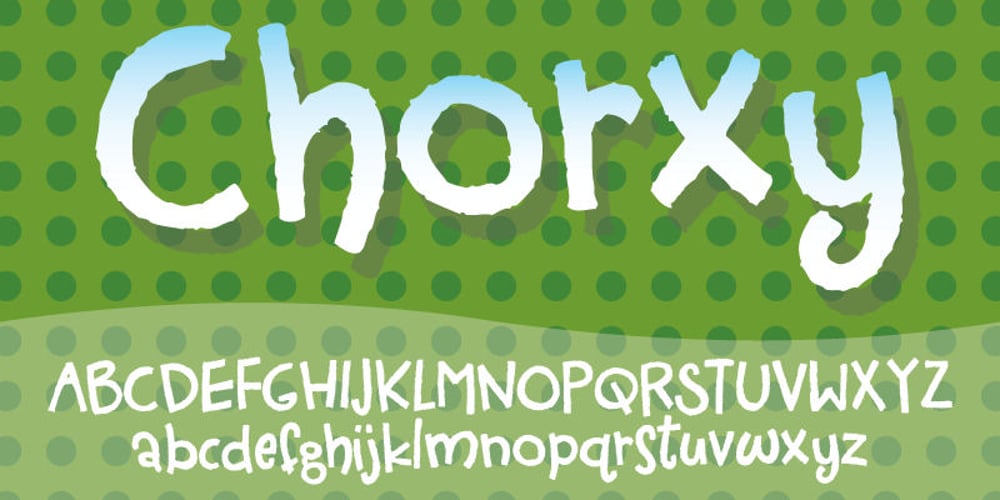
Chorxy Font Family was designed by Jakob Fischer and published by PizzaDude.dk. Chorxy contains 1 styles and family package options. Crunchy and mildly rounded edges, mixed with an imaginative and romantic flair of elegance. Chorxy has got an almost steady x-height, mixed with various jumpy letters, slightly crazy, yet legible! Comes with fi and fl ligatures. You will need to use OpenType supporting applications to use the autoligatures.